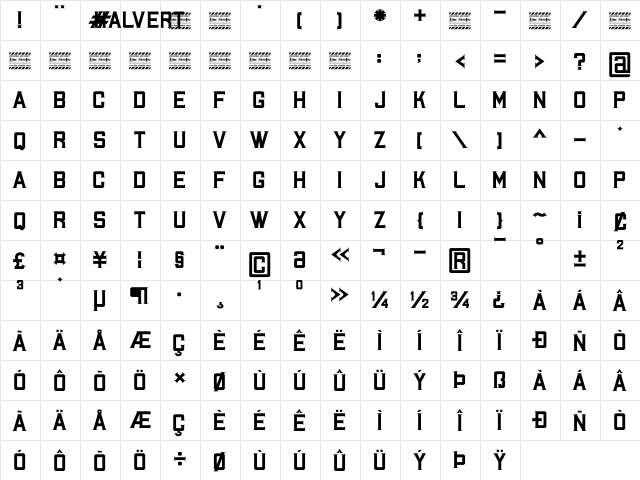
Halvert Solid Personal Use Regular Font Preview
Halvert Solid Personal Use Regular
Halvert Solid Personal Use Regular Font Details
| Designer | Donis Miftahudin |
Design Context for Halvert Solid Personal Use Typeface
Halvert Solid Personal Use takes a measured approach to typography — its balanced proportions and neutral character make it a reliable workhorse for both digital and print work.